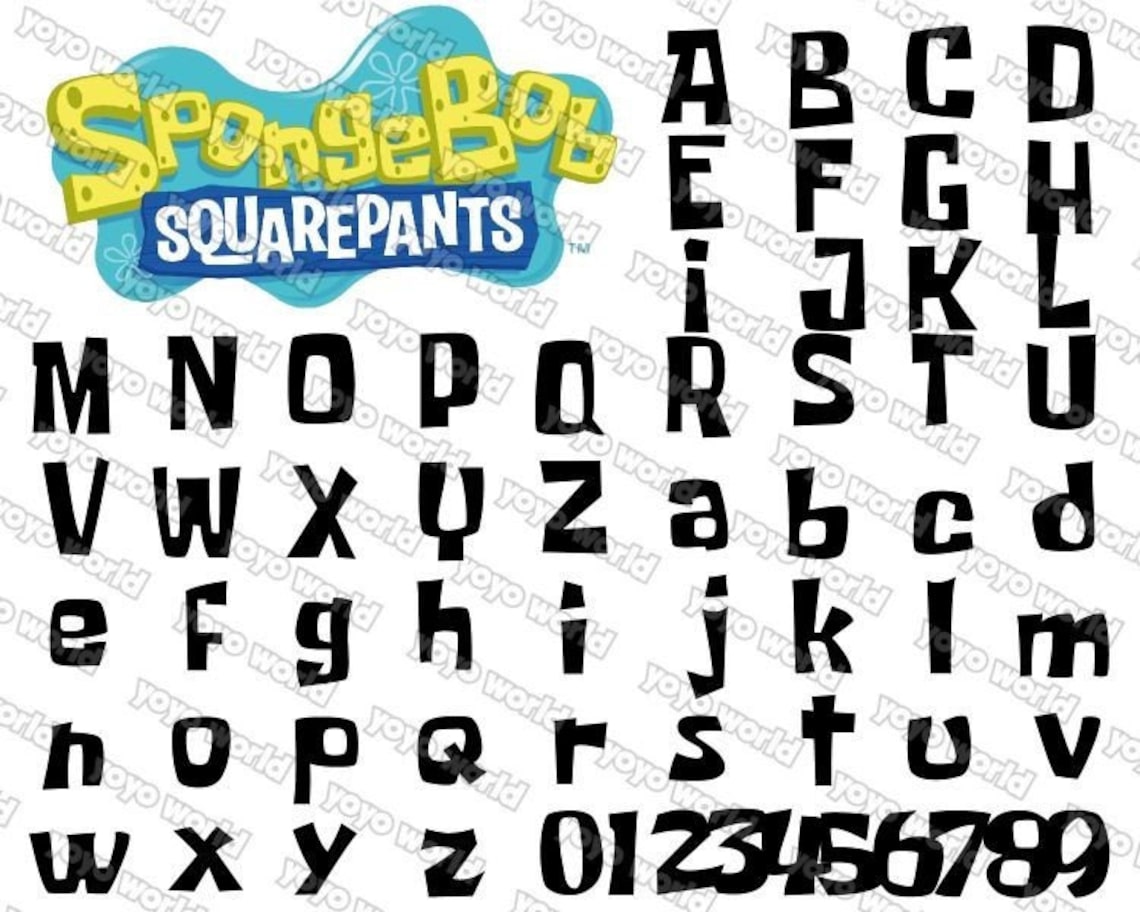
Spongebob Font Name
Spongebob Font Name - Try the best spongebob font generator & convert your text into images with many styles to choose from. It's based on the graphics from the 2001 game operation krabby patty. Krabby patty is a recreation of the main font used throughout the spongebob squarepants franchise. Below you will find a link to. You can download it for free here. Spongebob fonts are fan creations of your favorite tv show, spongebob squarepants on nickelodeon. For the “spongebob” part, there is a fan made font available based on these cartoon letters. Download spongebob font font free on fontbolt. Create text graphics with spongebob squarepants font. The font was created by seil based on the popular tv show spongebob squarepants.
The krabby patty typeface was first published on dafont in 2012. It's based on the graphics from the 2001 game operation krabby patty. Create text graphics with spongebob squarepants font. Try the best spongebob font generator & convert your text into images with many styles to choose from. Spongebob fonts are fan creations of your favorite tv show, spongebob squarepants on nickelodeon. Below you will find a link to. For the “spongebob” part, there is a fan made font available based on these cartoon letters. The font was created by seil based on the popular tv show spongebob squarepants. You can download it for free here. Krabby patty is a recreation of the main font used throughout the spongebob squarepants franchise.
Spongebob fonts are fan creations of your favorite tv show, spongebob squarepants on nickelodeon. Try the best spongebob font generator & convert your text into images with many styles to choose from. You can download it for free here. For the “spongebob” part, there is a fan made font available based on these cartoon letters. Krabby patty is a recreation of the main font used throughout the spongebob squarepants franchise. Create text graphics with spongebob squarepants font. The font was created by seil based on the popular tv show spongebob squarepants. Below you will find a link to. It's based on the graphics from the 2001 game operation krabby patty. The krabby patty typeface was first published on dafont in 2012.
Spongebob fonts are fan creations of your favorite tv show, spongebob squarepants on nickelodeon. Download spongebob font font free on fontbolt. Create text graphics with spongebob squarepants font. The krabby patty typeface was first published on dafont in 2012. It's based on the graphics from the 2001 game operation krabby patty.
You can download it for free here. The krabby patty typeface was first published on dafont in 2012. Below you will find a link to. For the “spongebob” part, there is a fan made font available based on these cartoon letters. Krabby patty is a recreation of the main font used throughout the spongebob squarepants franchise.
Spongebob fonts are fan creations of your favorite tv show, spongebob squarepants on nickelodeon. The font was created by seil based on the popular tv show spongebob squarepants. It's based on the graphics from the 2001 game operation krabby patty. The krabby patty typeface was first published on dafont in 2012. Download spongebob font font free on fontbolt.
The krabby patty typeface was first published on dafont in 2012. Try the best spongebob font generator & convert your text into images with many styles to choose from. Spongebob fonts are fan creations of your favorite tv show, spongebob squarepants on nickelodeon. Create text graphics with spongebob squarepants font. The font was created by seil based on the popular.
It's based on the graphics from the 2001 game operation krabby patty. Below you will find a link to. Create text graphics with spongebob squarepants font. The krabby patty typeface was first published on dafont in 2012. For the “spongebob” part, there is a fan made font available based on these cartoon letters.
Download spongebob font font free on fontbolt. You can download it for free here. The krabby patty typeface was first published on dafont in 2012. Try the best spongebob font generator & convert your text into images with many styles to choose from. Spongebob fonts are fan creations of your favorite tv show, spongebob squarepants on nickelodeon.
Download spongebob font font free on fontbolt. It's based on the graphics from the 2001 game operation krabby patty. Try the best spongebob font generator & convert your text into images with many styles to choose from. Spongebob fonts are fan creations of your favorite tv show, spongebob squarepants on nickelodeon. Krabby patty is a recreation of the main font.
You can download it for free here. The krabby patty typeface was first published on dafont in 2012. Krabby patty is a recreation of the main font used throughout the spongebob squarepants franchise. Create text graphics with spongebob squarepants font. Try the best spongebob font generator & convert your text into images with many styles to choose from.
Spongebob fonts are fan creations of your favorite tv show, spongebob squarepants on nickelodeon. Try the best spongebob font generator & convert your text into images with many styles to choose from. Download spongebob font font free on fontbolt. Below you will find a link to. You can download it for free here.
Spongebob Fonts Are Fan Creations Of Your Favorite Tv Show, Spongebob Squarepants On Nickelodeon.
For the “spongebob” part, there is a fan made font available based on these cartoon letters. Below you will find a link to. It's based on the graphics from the 2001 game operation krabby patty. Try the best spongebob font generator & convert your text into images with many styles to choose from.